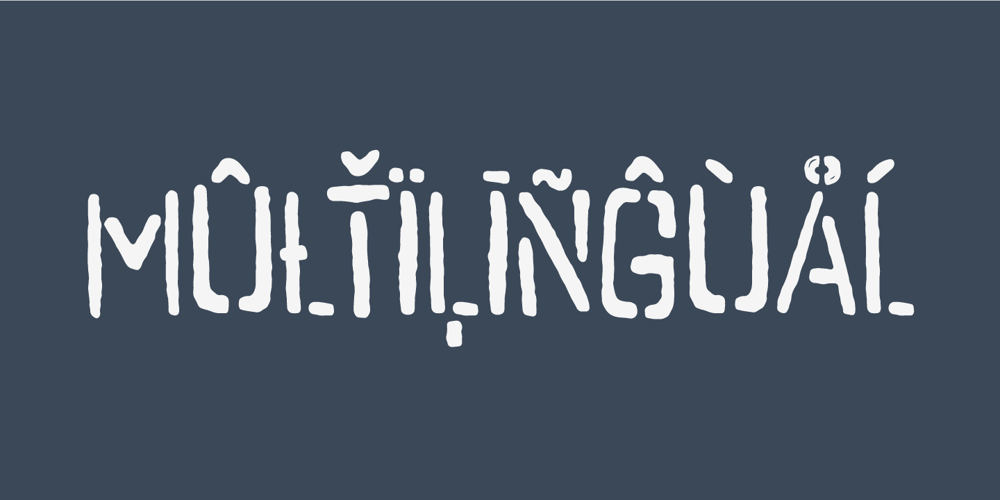
Stupid War Font Family was designed by Jakob Fischer and published by PizzaDude.dk. Stupid War contains 2 styles and family package options. This font is not a rebel or a political font, but a simple and grungy stencil font. Use it for anything that needs a clear and catchy headline. The font is even suitable for massive text – perhaps for that skateboarding poster you have plans to do? Maybe a heavy metal concert flyer? Please don’t use it for any war business, because war is stupid!